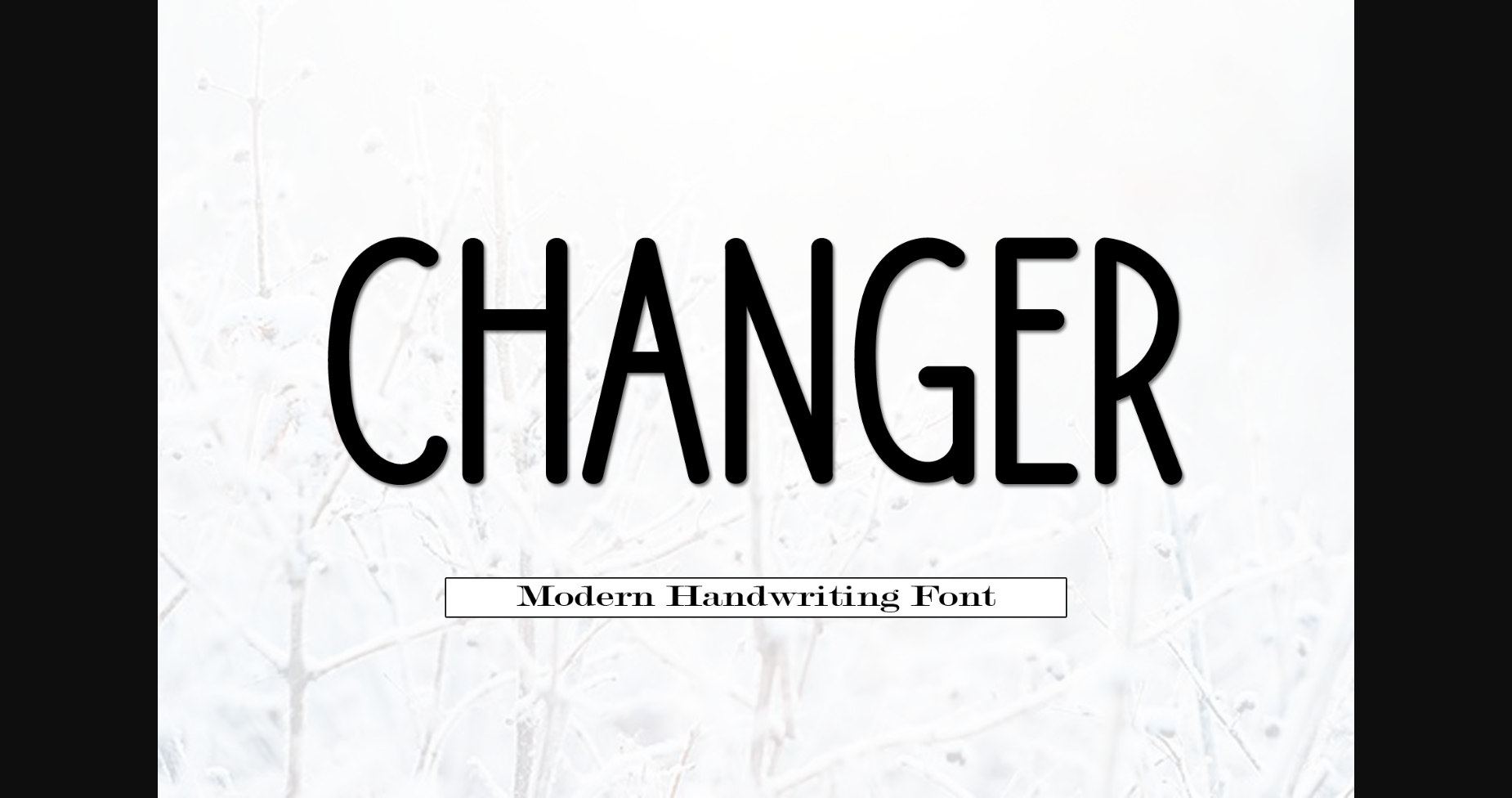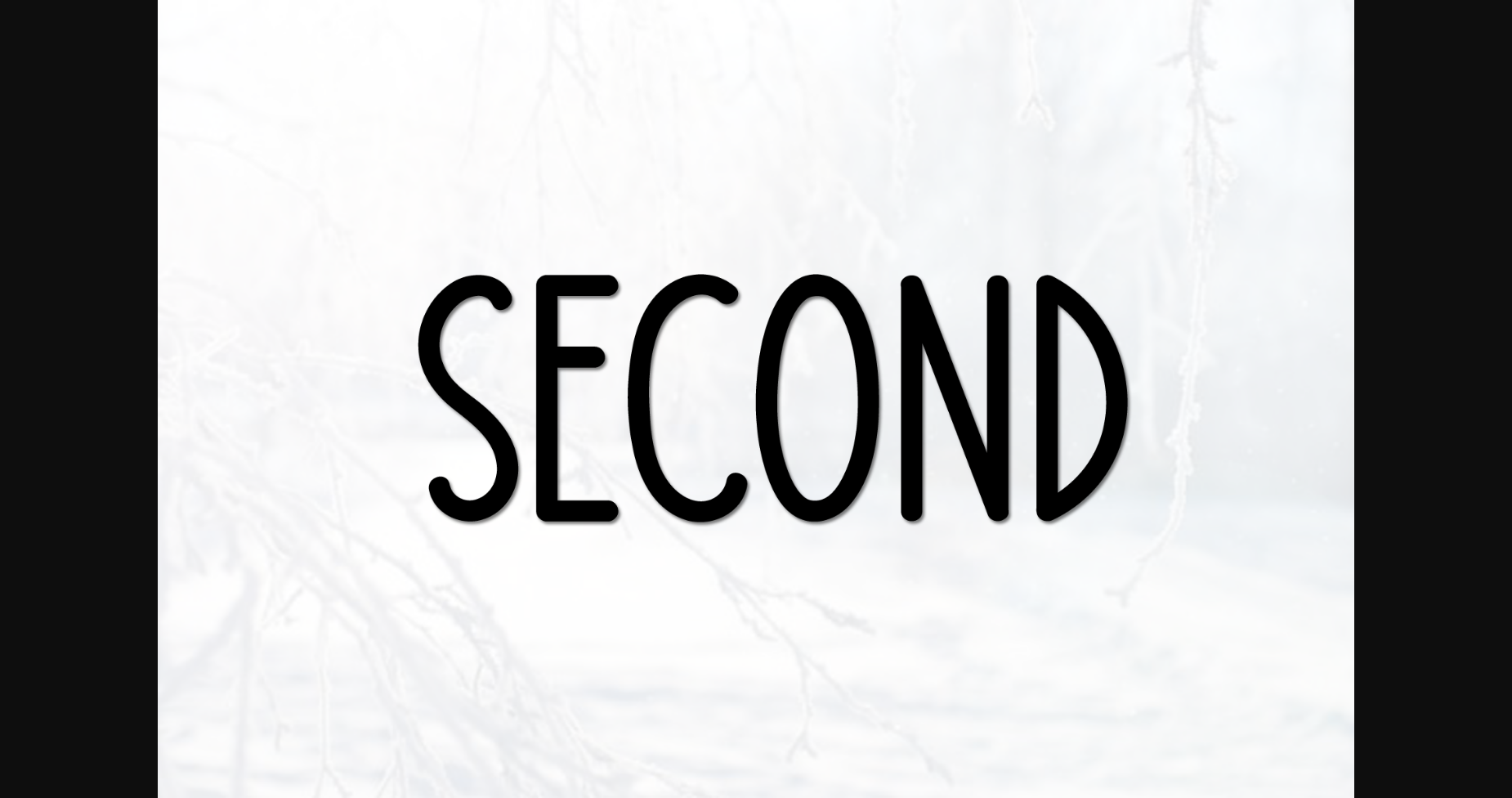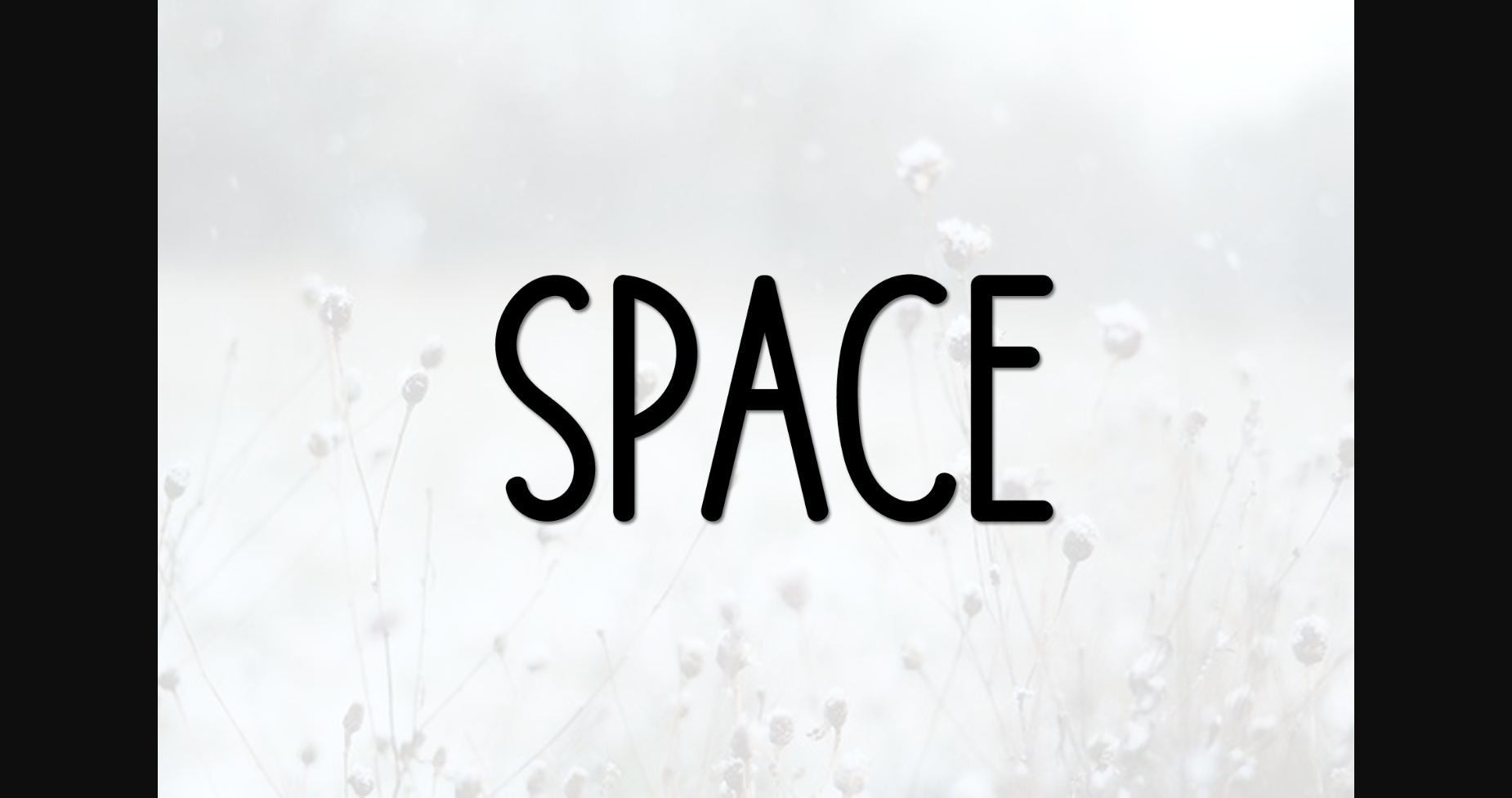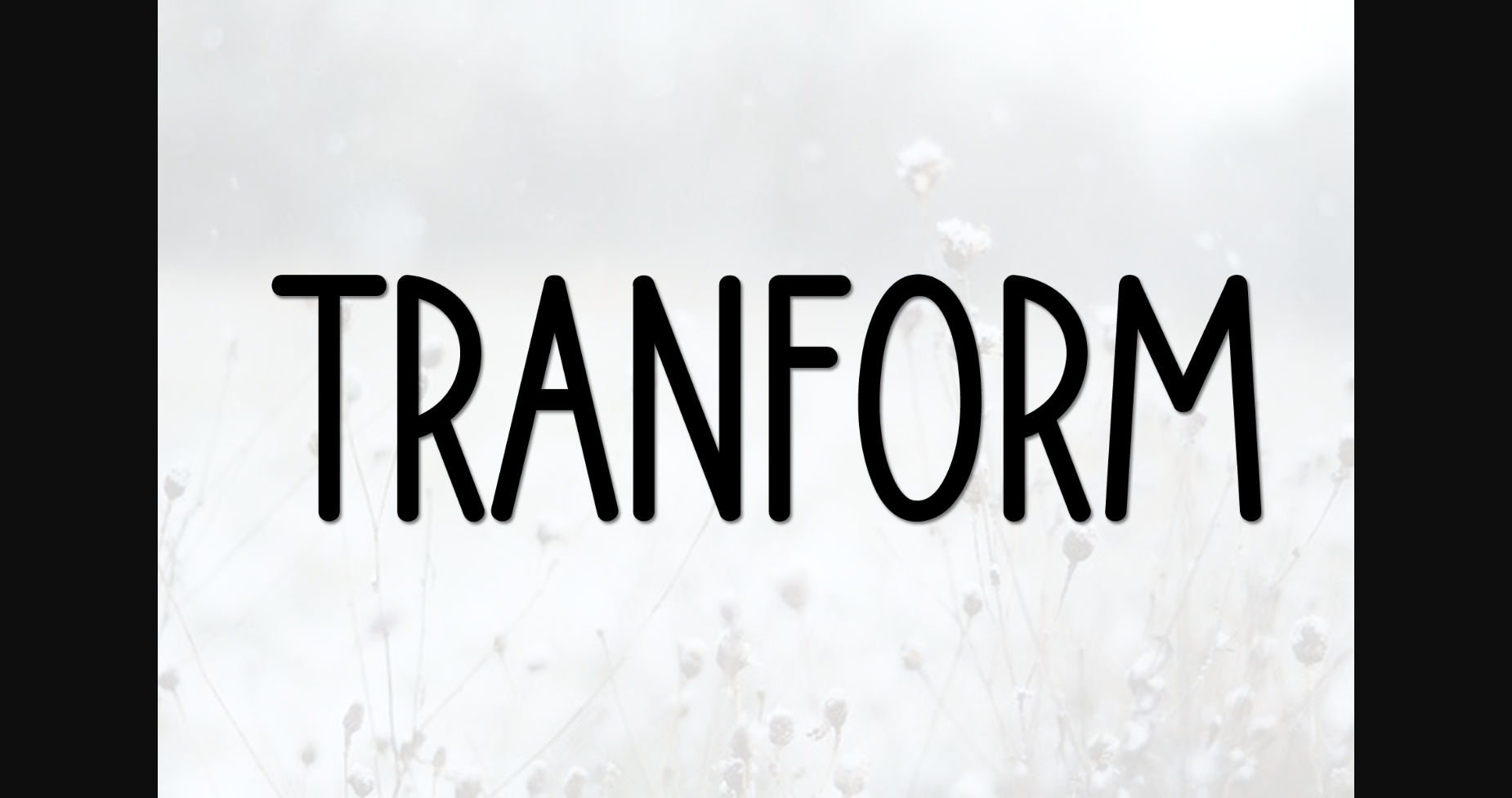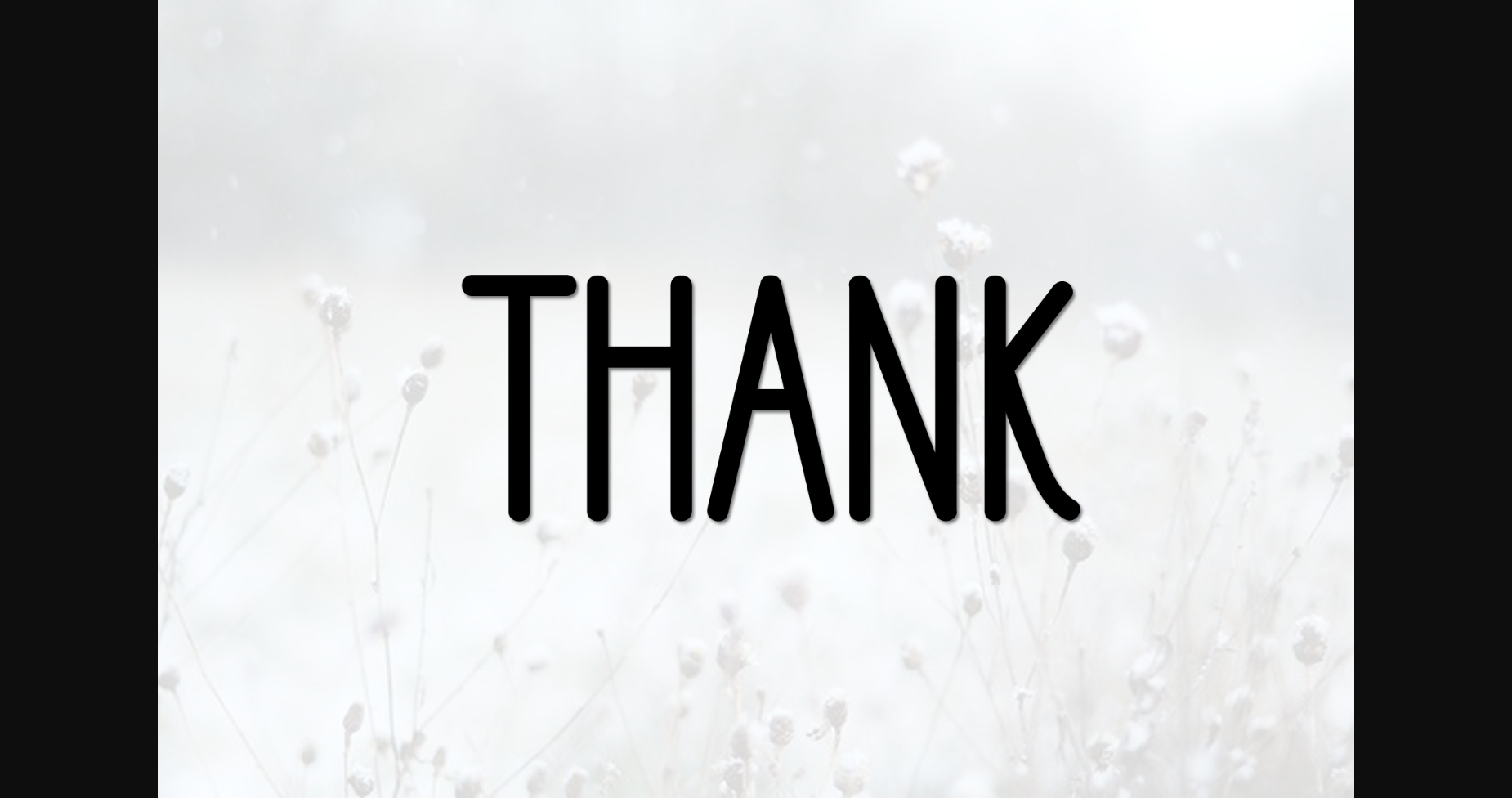
HomeSans Serif FontsChanger Font Sans Serif Fonts Changer Font FacebookXPinterestWhatsApp 1 of 7 ... Changer Font Poster 2... Changer Font Poster 3... Changer Font Poster 4... Changer Font Poster 5... Changer Font Poster 6... Changer Font Poster 7... About Changer Font Changer is a stylish and very elegant handwritten font. It looks amazing on wedding invitations, thank you cards, quotes, greeting cards, logos, business cards, and any other design that calls for a handwritten touch. DOWNLOAD NOW People also explored Full Love Font Entarel Font Milk Font Ornaments Font Oversized Font Beauty Lalisa Font Saturday Farmhouse Font Processor Font Renoric Font 272 0 TagsChangerChanger Font Previous articleSiblingh FontNext articleBruschetta Font LEAVE A REPLY Cancel reply Comment: Please enter your comment! Name:* Please enter your name here Email:* You have entered an incorrect email address! Please enter your email address here Website: Save my name, email, and website in this browser for the next time I comment. Personal Use Free Sebastopol Personal Use Free Read more about this font Budmo Personal Use Free Read more about this font Befindisa Personal Use Free Read more about this font Girls Personal Use Free Read more about this font BLOG Fonts That Capture the Spirit of New York City New York City is more than just a place—it’s an experience, a rhythm, a visual language... Best Fonts for YouTube Videos: Make Your Thumbnails Stand Out The 10 Best Handwriting Fonts to Add Personality to Your Designs How to Install and Use Fonts on Windows, macOS, and Web Projects